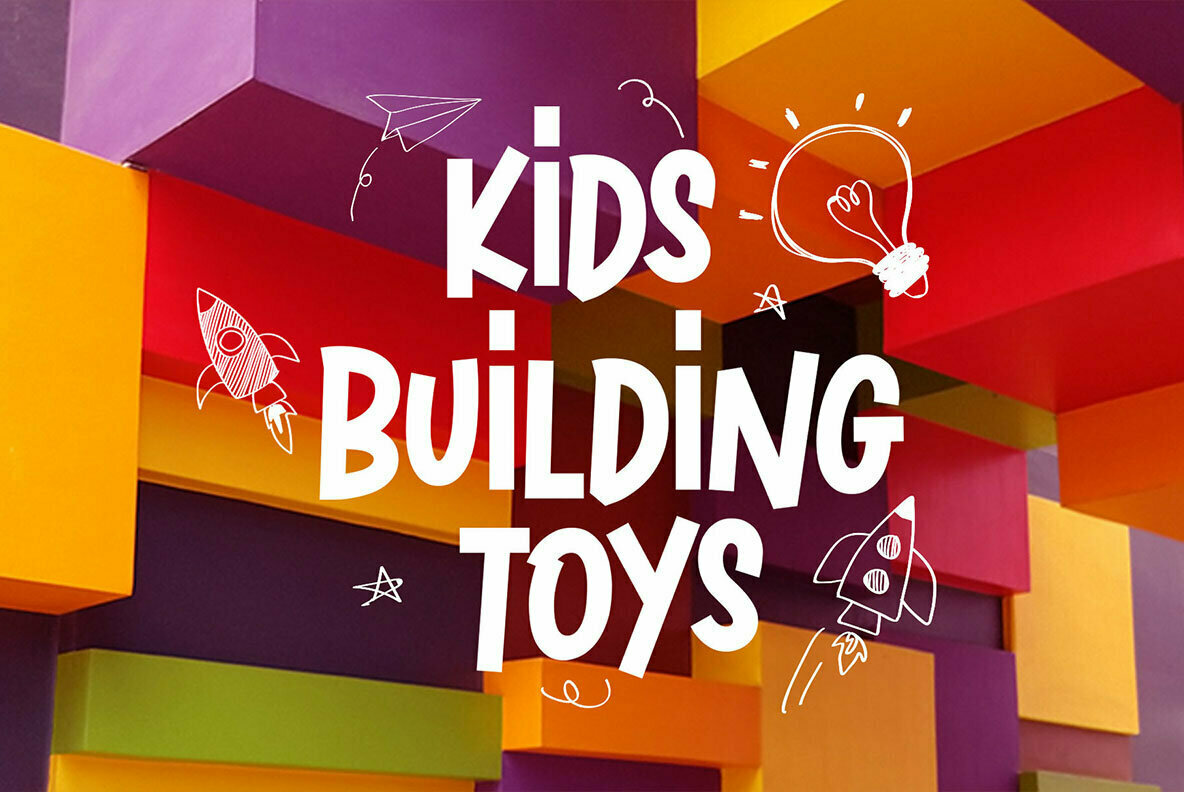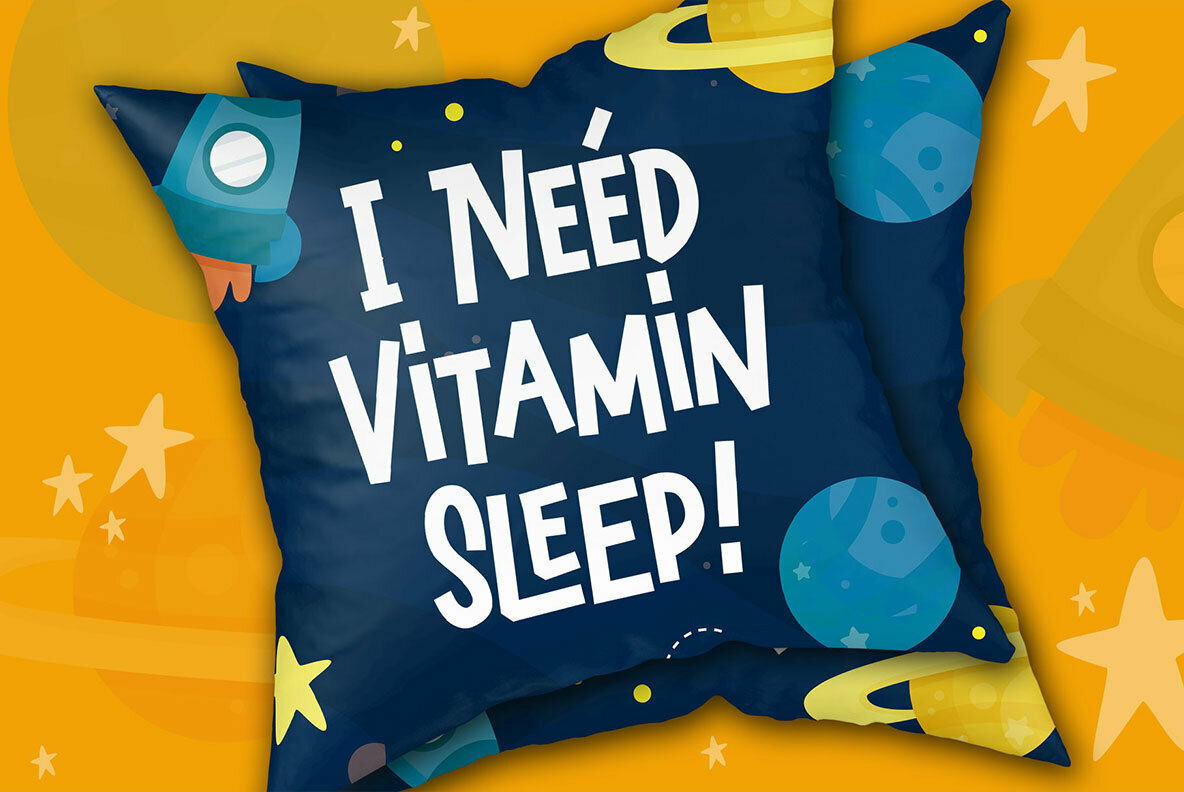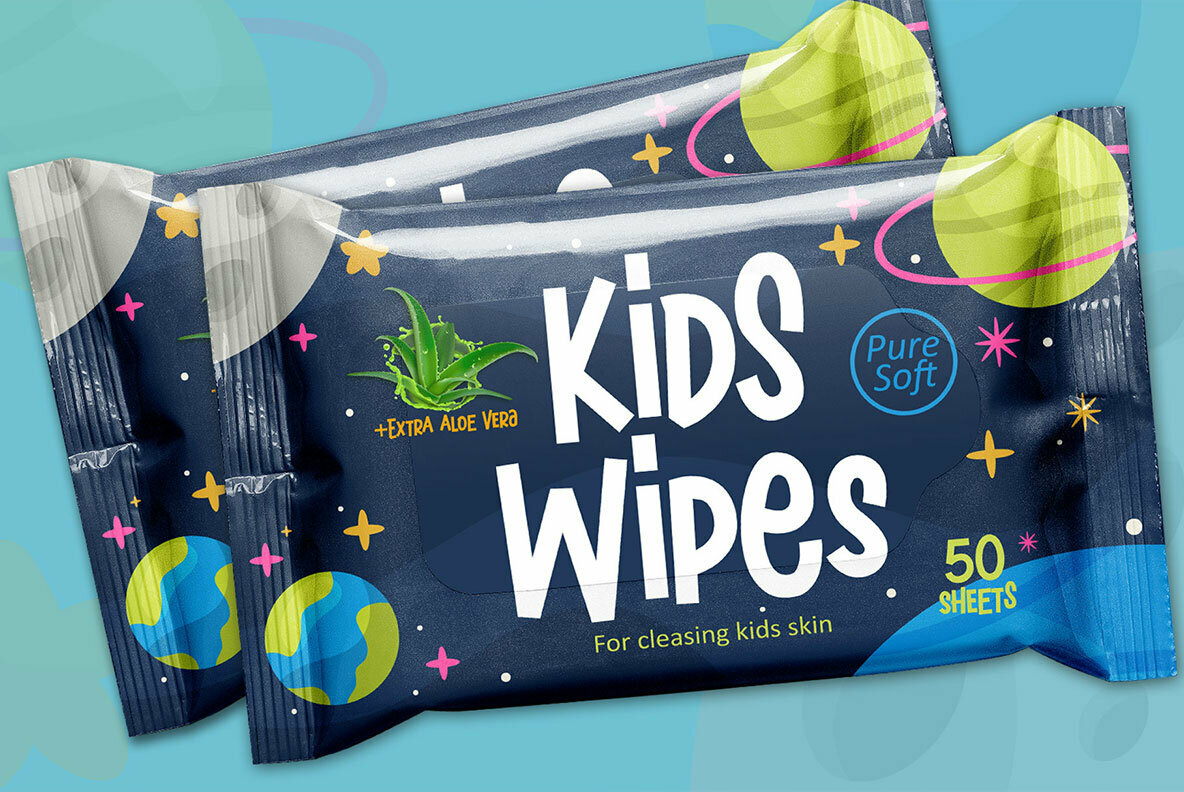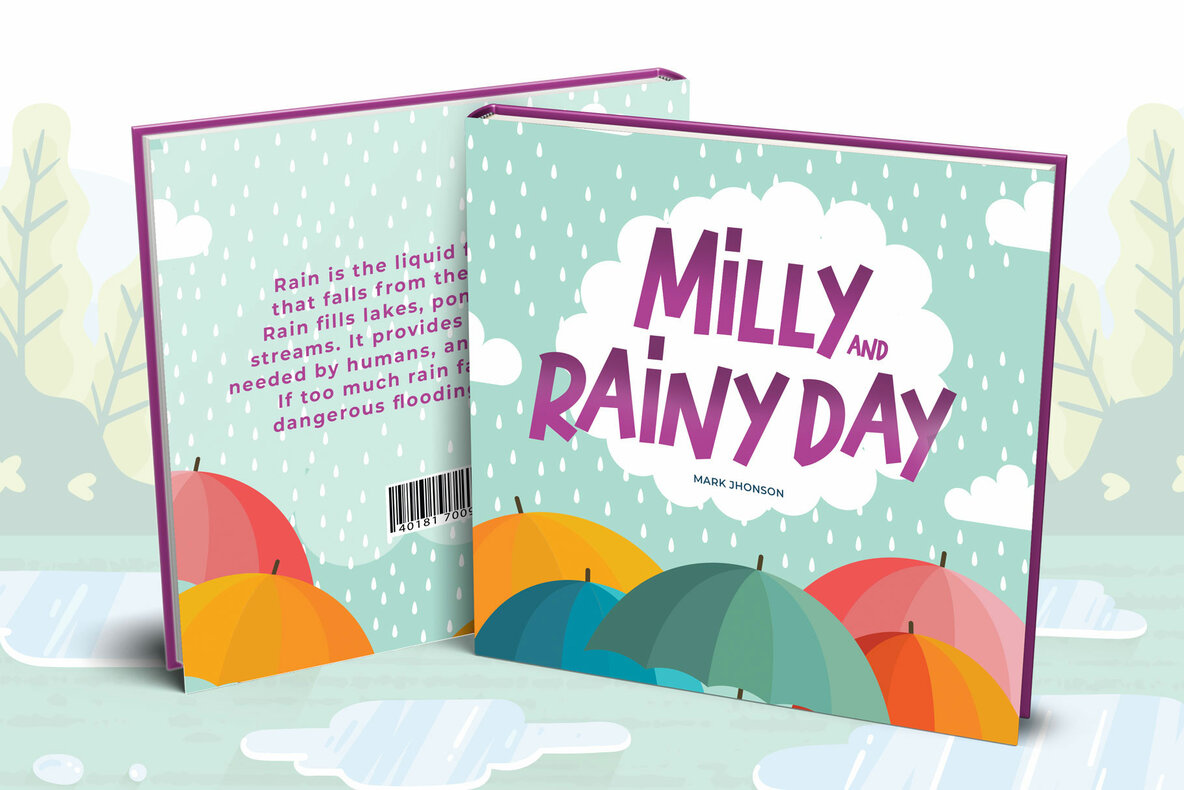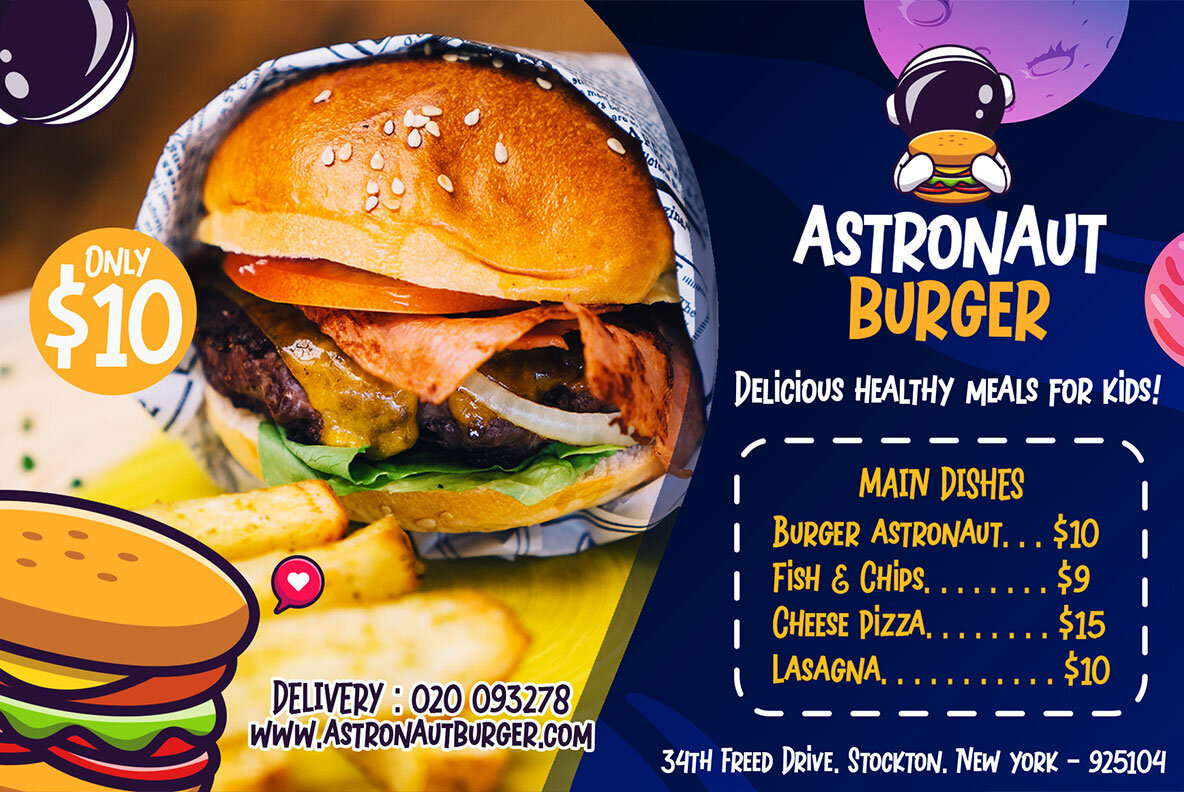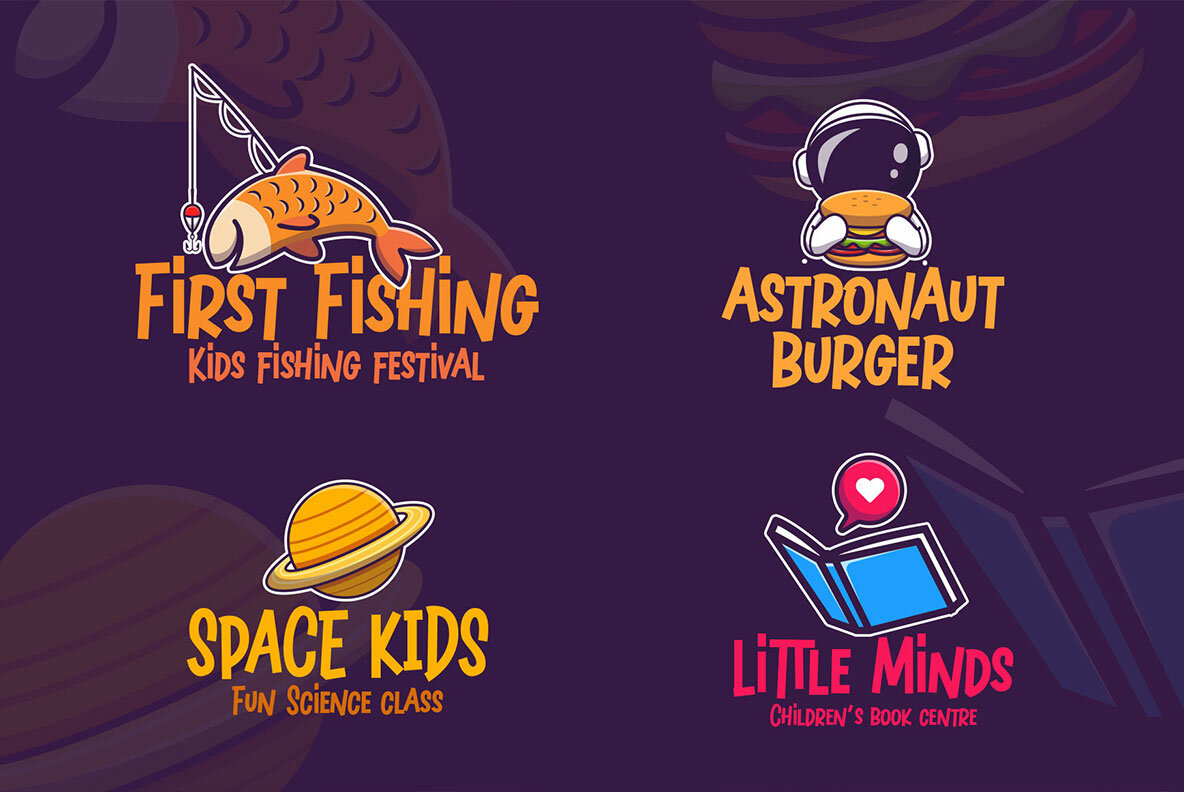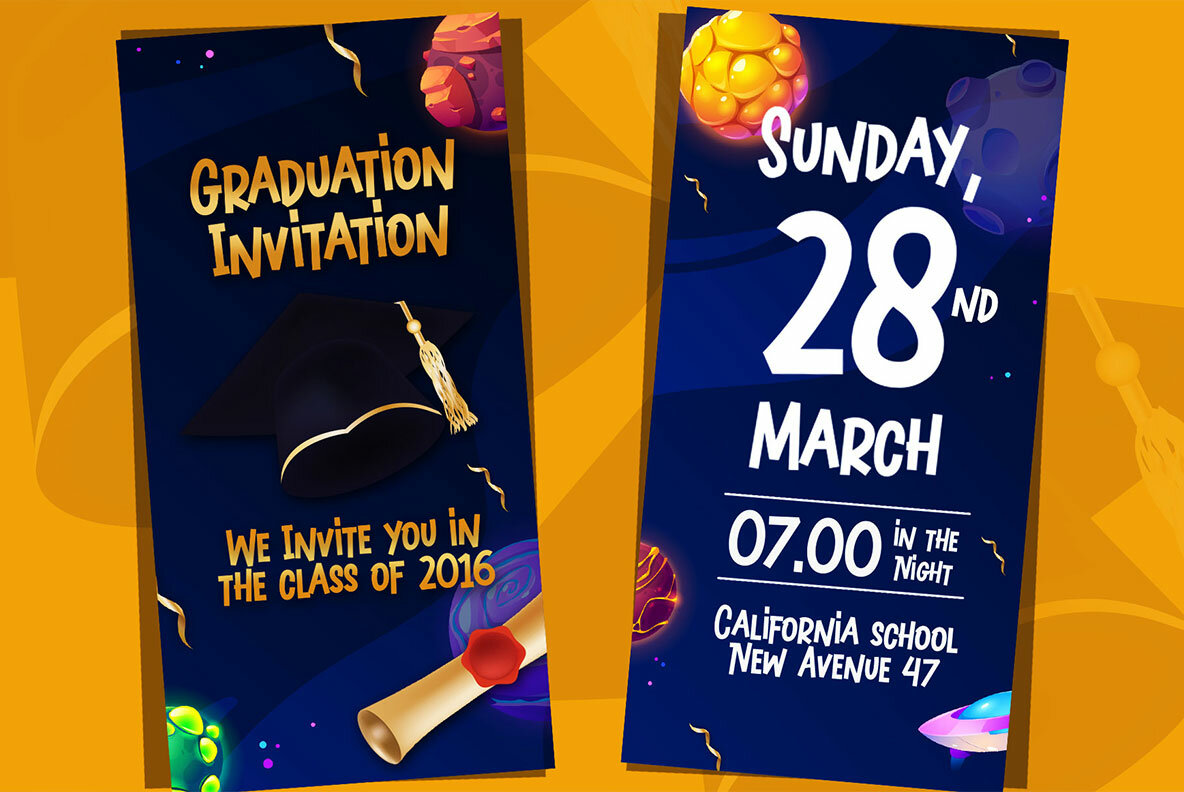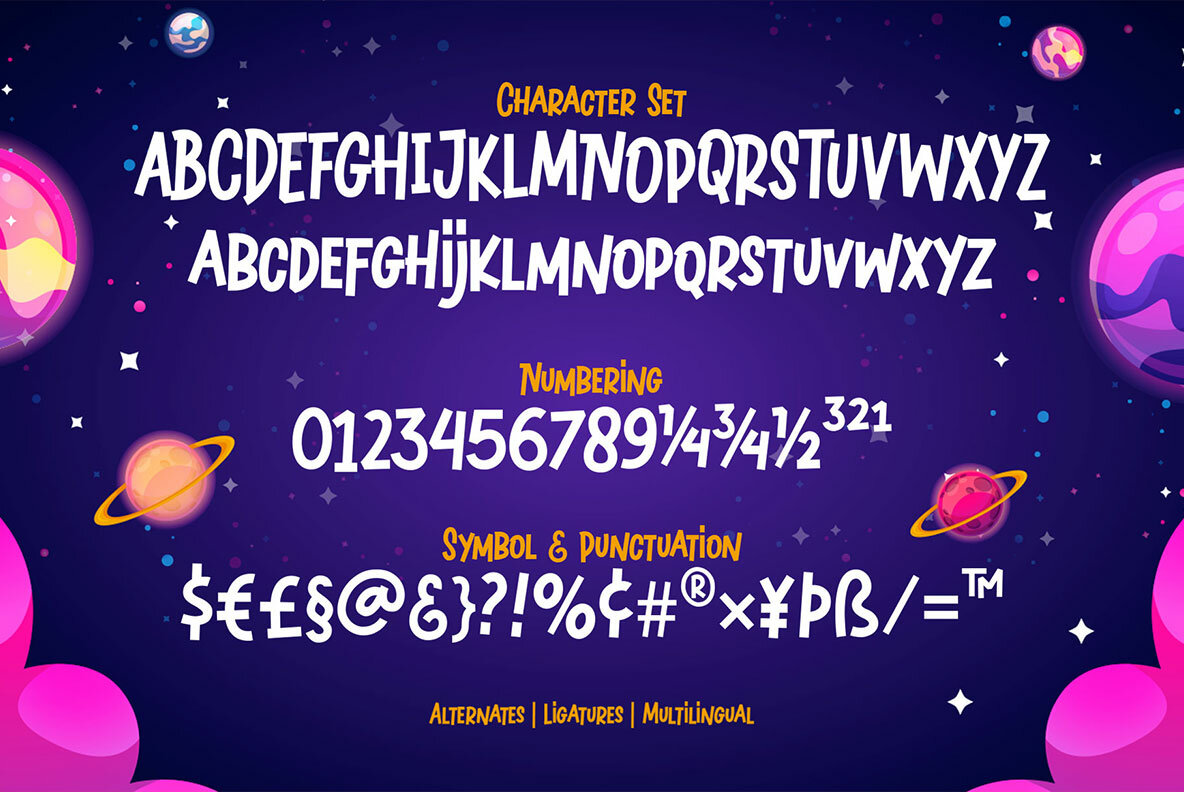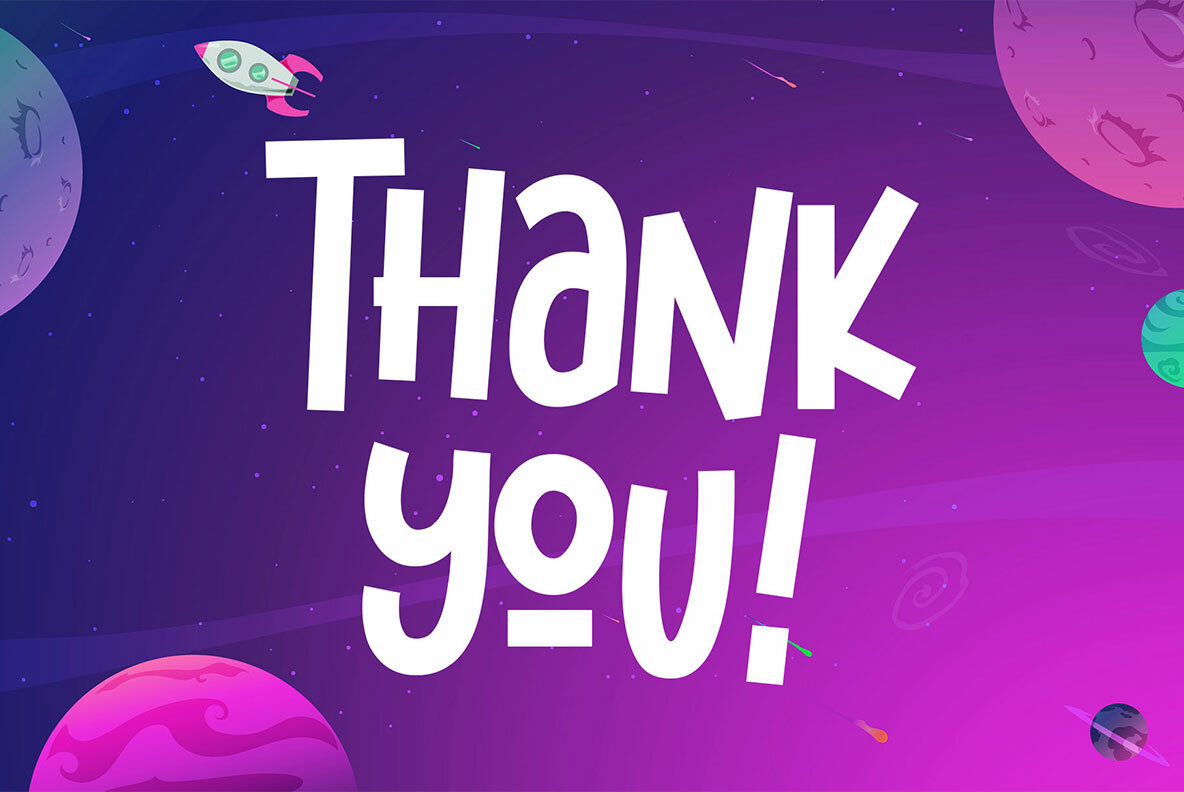
Burgery Font
Burgery
Introducing Burgery, a charming display font inspired by the whimsy of children's games and snack packaging. This monoline typeface balances playfulness with clarity, making it an ideal choice for a variety of creative endeavors. Burgery is perfect for adding a playful touch to items such as children’s merchandise, social media posts, branding materials, and more. Its versatility and accessibility make it a favorite in any designer’s toolkit.Burgery: A Playful Display Font for Creative Projects